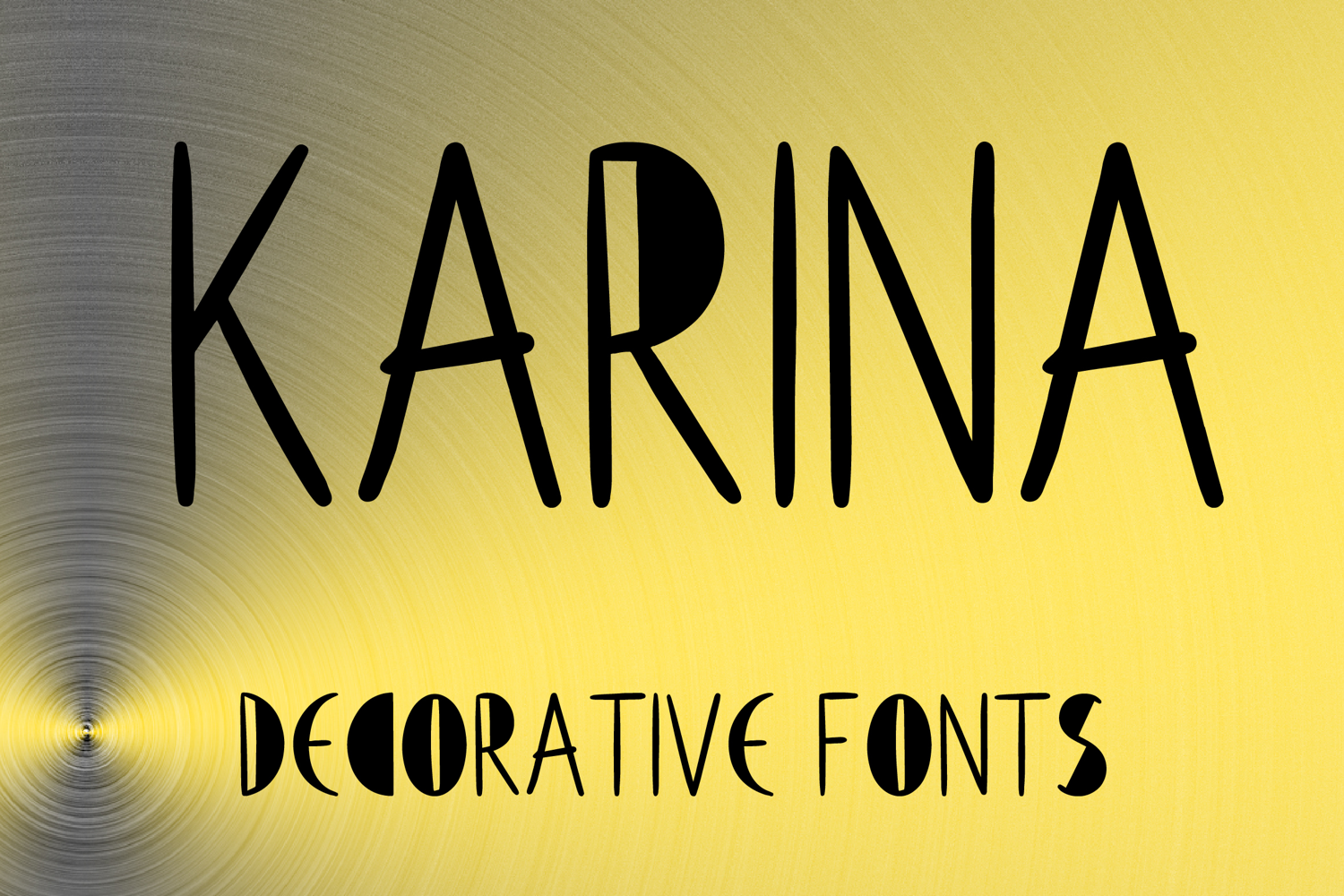
KARINA
KARINA is a tall decorative display font with a clean hand-drawn style and elegant modern charm. Its uppercase letterforms feature slim elongated strokes, soft tapered lines, and a graceful artistic structure that creates a stylish, airy, and eye-catching look. Designed with uppercase letters A–Z and numbers 0–9, KARINA is perfect for branding, posters, packaging, logos, invitations, social media graphics, and creative projects that need a refined and memorable statement.